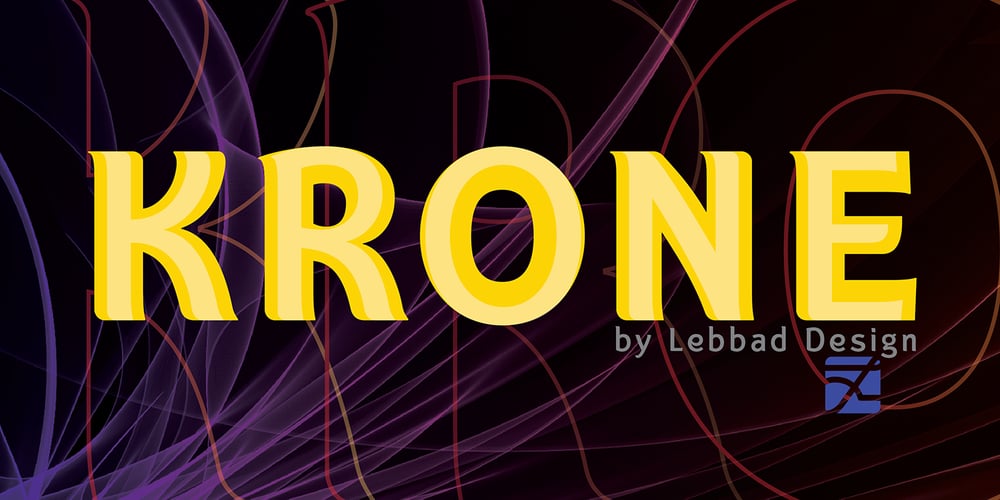
Krone Font Family was designed by James A. Lebbad and published by Lebbad Design. Krone contains 4 styles and family package options. Krone is a clean, bold contemporary semi-serif font characterized by its flared semi-serifs and graceful curves. Well-suited for all graphic design challenges such as dynamic display headlines, logos, posters, cover/titles and much more. Its optimized kerning enables it to work well in a variety of text uses for both web and desktop.